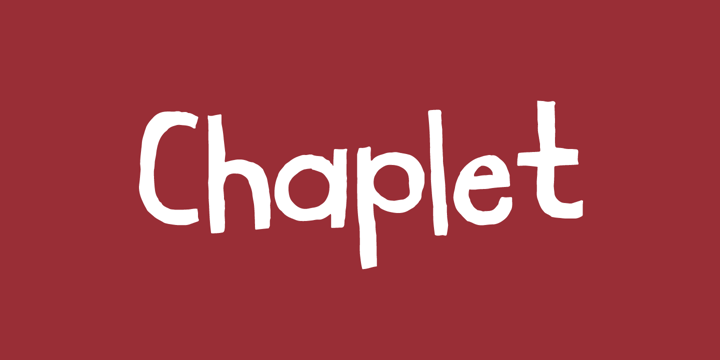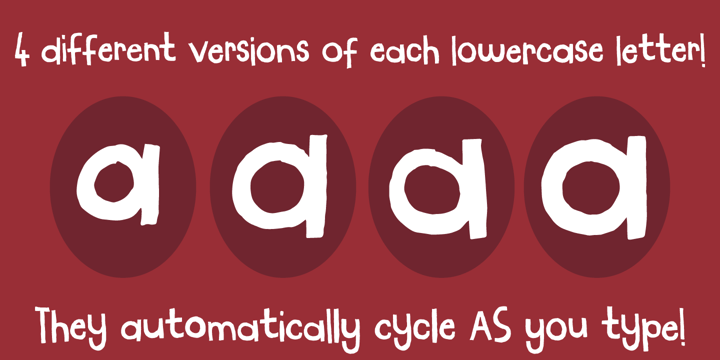
Chaplet
by Bogstav
The Chaplet Font Family was designed by and published by Bogstav. Chaplet contains 2 styles and family package options.
• Chaplet Regular
• Chaplet Outline
Handmade with an organic feeling.